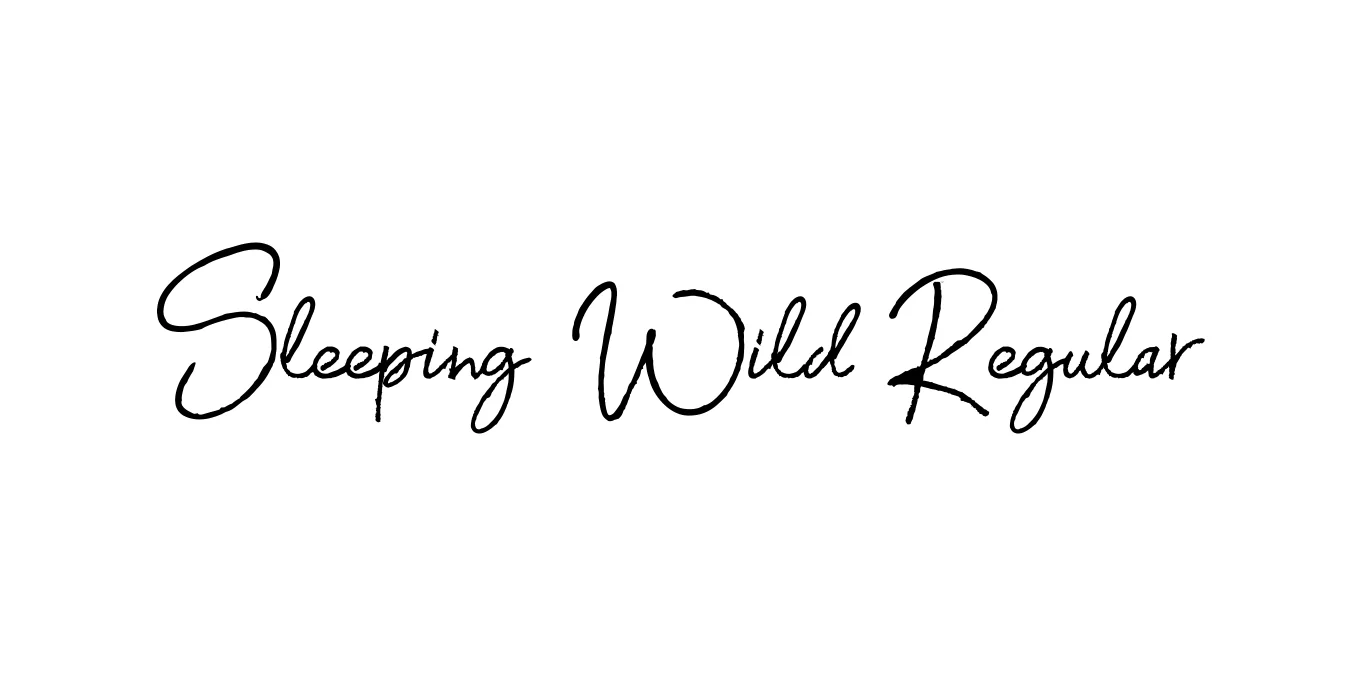
Sleeping Wild Regular
Designed by Typia Nesia
Sleeping Wild Regular is a stunning hand-drawn brush script font that embodies a sense of raw elegance and organic motion. Designed with authentic dry-brush textures and sweeping ligatures, this typeface is crafted to bring a personal, handcrafted feel to any design project. Its high-contrast strokes and natural imperfections make it stand out as a premier choice for designers looking to inject a touch of rustic sophistication into their visual narratives.
Developed by the talented team at Typia Nesia, this font has become a go-to resource for creative professionals working on high-end branding and intimate event stationery. The versatility of Sleeping Wild Regular allows it to function beautifully across various mediums, from digital social media graphics to high-quality print packaging. Its unique balance of wild energy and refined artistry ensures that every character contributes to a cohesive and visually striking aesthetic.
Sleeping Wild Regular Best Uses
Adds an elegant and personal touch to invitations, save-the-dates, and thank-you cards.
Perfect for creating memorable logos and identity systems for boutique brands.
Ideal for eye-catching quotes, story overlays, and aesthetic lifestyle content.
Enhances the visual appeal of organic products, cosmetics, and artisanal goods.